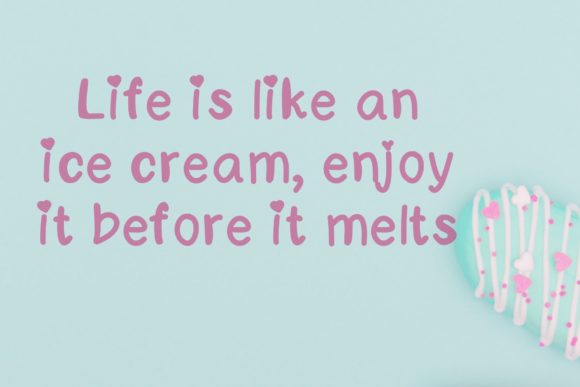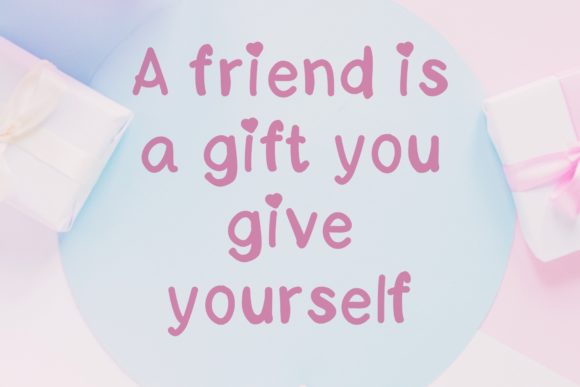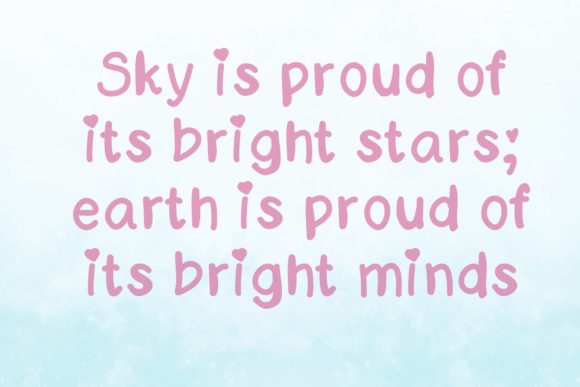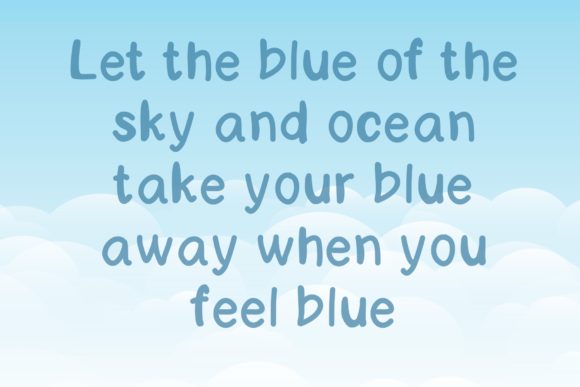
Introducing Ameliya Font: The Cute Handwritten Font with a Romantic Feel
Are you a designer or crafter looking for a unique and captivating font to elevate your creative projects? Look no further than Ameliya Font, a charming handwritten font that exudes a romantic feel. With its whimsical and delicate strokes, Ameliya is sure to make your designs stand out from the crowd.
The Characteristics of Ameliya Font
Ameliya Font is a carefully crafted handwritten font that boasts a range of characteristics that make it perfect for a variety of creative projects. Some of its key features include:
- Cute and playful strokes: Ameliya’s strokes are smooth, flowing, and full of character, giving your designs a delightful and whimsical feel.
- Romantic feel: The font’s elegant and refined aesthetic makes it perfect for projects that require a touch of romance and sophistication.
- Highly legible: Despite its ornate and decorative nature, Ameliya remains highly legible, making it suitable for use in a range of applications, from headings and titles to body text.
- Versatile: Ameliya is a versatile font that can be used in a wide range of creative projects, from wedding invitations and stationery to branding, packaging, and digital designs.
How to Use Ameliya Font in Your Creative Projects
Adding Ameliya Font to your creative projects is easy, and the possibilities are endless. Here are a few ideas to get you started:
- Wedding invitations and stationery: Ameliya’s romantic feel makes it a perfect fit for wedding invitations, save-the-date cards, and other stationery.
- Branding and packaging: Use Ameliya to add a touch of personality and whimsy to your brand’s packaging, labels, and marketing materials.
- Digital designs: Ameliya is a great choice for digital designers looking to add a personal touch to their work, from social media graphics to website headers.
- Crafting and DIY projects: Ameliya is also perfect for crafters and DIY enthusiasts looking to add a personal touch to their projects, from handmade cards to wood signs.
Tips for Getting the Most Out of Ameliya Font
To get the most out of Ameliya Font, here are a few tips to keep in mind:
- Experiment with different sizes and colors: Ameliya looks great in a range of sizes and colors, so don’t be afraid to experiment and find the perfect combination for your project.
- Pair with complementary fonts: Ameliya pairs well with a range of fonts, from clean and modern sans-serifs to elegant and ornate scripts.
- Use it sparingly: While Ameliya is a beautiful font, it can be overwhelming if overused. Use it sparingly to add emphasis and create visual interest.
In conclusion, Ameliya Font is a charming and versatile handwritten font that is sure to add a touch of romance and whimsy to your creative projects. With its cute and playful strokes, romantic feel, and high legibility, Ameliya is perfect for designers and crafters looking to create unique and captivating designs. So why wait? Add Ameliya Font to your creative toolkit today and see how it can elevate your designs to the next level!